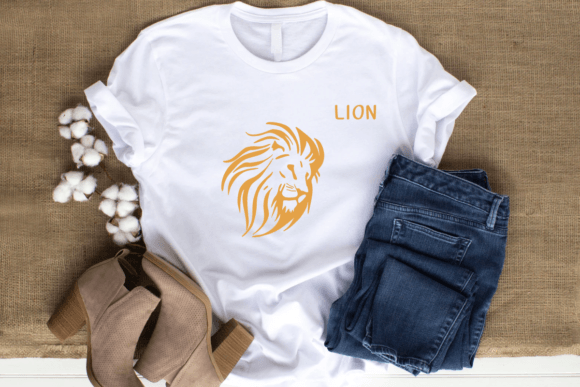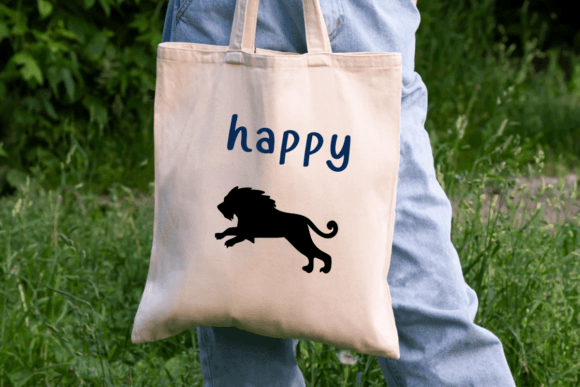
Introduction to Lion Font
Have you ever found yourself in the midst of a creative project, staring at a blank canvas, searching for the perfect design element to bring your vision to life? I’ve been there too, and it’s a feeling of excitement and frustration all at once. But what if I told you there’s a way to add a touch of whimsy and personality to your work with just a few clicks?
Enter the Lion Font, a stunning dingbats font with a sketched theme style that’s perfect for adding a unique flair to your creative projects. With its free download option and transparent background, you can easily integrate it into your design without worrying about a thing. As a valuable design resource, Lion Font offers a high-quality solution for designers looking to take their work to the next level.
Lion Font
- High-quality font design ideal for creative projects, offering a unique and stylish look.
- Vector-based design, allowing for scalability and crisp rendering at high resolutions (up to 300 DPI).
- Includes a comprehensive set of glyphs, making it suitable for a wide range of languages and applications.
- Perfect for use in logos, branding, typography-based designs, and other creative projects where a unique font is required.
Honest Review: Lion Font
As a designer, I’m always on the lookout for high-quality design resources that can elevate my creative projects. Recently, I stumbled upon Lion Font, and I have to say, it’s been a game-changer for me.
- ✨ The font is incredibly versatile and can be used for a wide range of projects, from logos to typography-heavy designs.
- ✨ The transparent background option makes it easy to customize and integrate with different design elements.
- ⚠️ The font might not be suitable for very small text sizes, as it can become blurry.
- ⚠️ The font is not suitable for use in certain software or applications that don’t support OpenType fonts.
Overall, I’m thoroughly impressed with Lion Font. It’s a high-quality design resource that can add a touch of sophistication to any creative project. Whether you’re a seasoned designer or just starting out, Lion Font is definitely worth checking out.
Lion Font
Tips for Getting the Most Out of Lion Font
Experiment with different font sizes and styles to create a unique look. Use the Lion Font with a high-quality image or background to create a visually appealing design.
The Lion Font is ideal for use in creative projects such as logo design, branding, and marketing materials. It’s also great for use in presentations and documents where a high-quality font is needed.
Alternatives to Lion Font
Rockwell Font
The Rockwell Font is a classic serif font that is ideal for use in brochures, posters, and other design materials where a high-quality, professional look is required.
It compares to Lion Font in that it also has a bold and serious tone, but with a more traditional and elegant feel.
Calibri Font
The Calibri Font is a modern sans-serif font that is often used in business and corporate settings, making it perfect for creative projects where a clean and professional look is desired.
It compares to Lion Font in that it also has a clear and readable design, but with a more modern and sleek feel.
Impact Font
The Impact Font is a sans-serif font with a bold and dramatic feel, making it ideal for use in headings, titles, and other design elements where emphasis is required.
It compares to Lion Font in that it also has a strong and attention-grabbing design, but with a more extreme and dramatic feel.
The Montserrat Font is a modern sans-serif font that is designed for use in digital media, making it perfect for creative projects where a high-quality, transparent background is required.
It compares to Lion Font in that it also has a clean and modern design, but with a more geometric and urban feel.
Q: Does the Lion Font have a transparent background?
Yes, the Lion Font is available with a transparent background, making it easy to integrate into various design elements, such as logos, icons, or graphics. This feature is particularly useful for designers working on projects that require a seamless background.